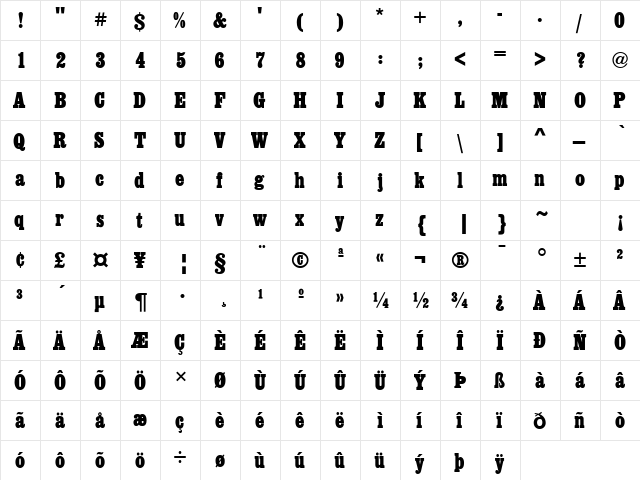
Dynasty Black Cond. Regular
Design Context for Dynasty Black Cond. Typeface
Dynasty Black Cond. is a composed and adaptable typeface that performs quietly and consistently across a wide range of design contexts. The condensed width makes it efficient for tight spaces without sacrificing legibility.